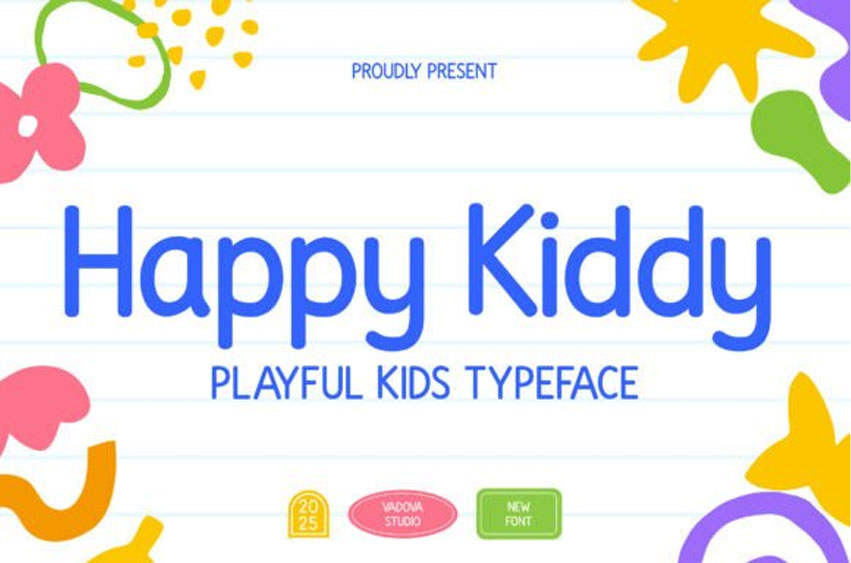
Happy Kiddy Font Infuse your designs with the pure, unbridled energy of childhood with Happy Kiddy. This lovely font is designed to be the “best friend” of your creative toolkit. Its tall x-height and open apertures make it incredibly legible for young readers, making it the go-to choice for children’s books, educational posters, and birthday invitations.
Whether you’re branding a toy store or creating cheerful classroom materials, this font radiates a “happy-go-lucky” vibe that is impossible to ignore.